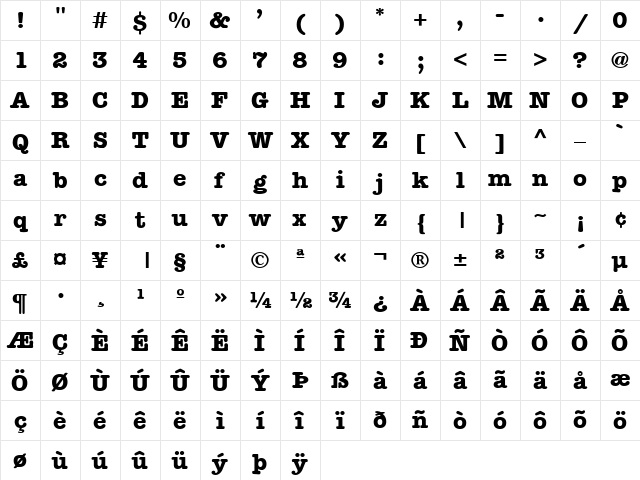
Memorandum Bold Free Font
Memorandum Bold
Design Context for Memorandum
Memorandum is a composed and adaptable typeface that performs quietly and consistently across a wide range of design contexts. Its bold stroke weight gives it real presence on the page.